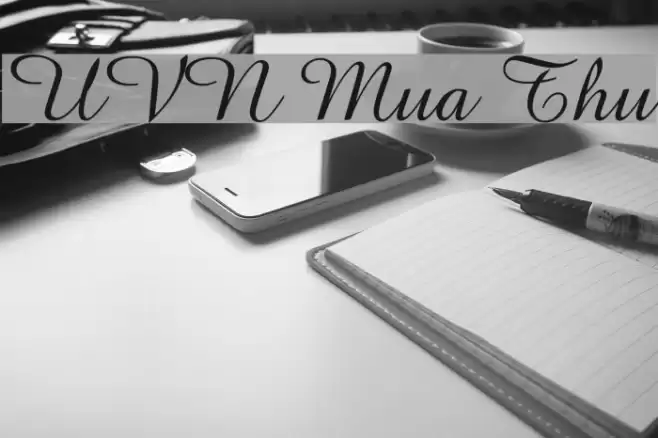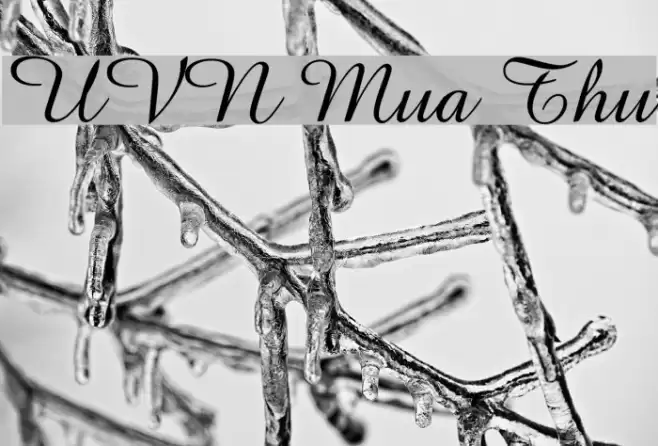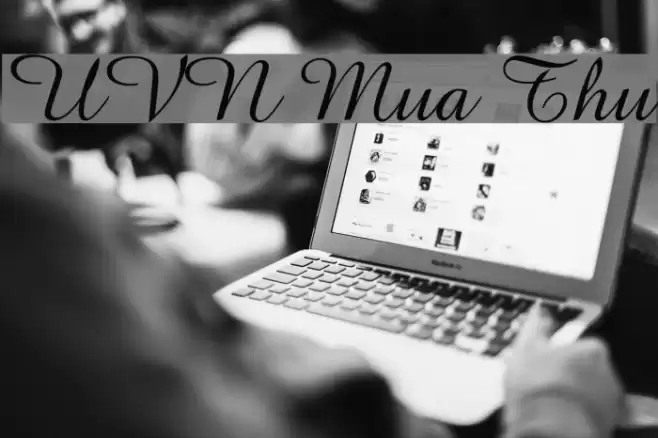
UVN Mua Thu Font
This elegant script font features a flowing, cursive style with smooth, continuous strokes that create a sense of fluidity and grace. The uppercase letters are adorned with intricate loops and flourishes, adding a touch of sophistication and charm. The lowercase letters maintain a consistent slant, enhancing the overall harmony of the design. Numbers and special characters are crafted with the same attention to detail, ensuring a cohesive look across all elements. The font's delicate curves and refined appearance make it ideal for projects that require a touch of elegance and class.
A graceful script font with flowing, cursive strokes and intricate flourishes from Uncategorized fonts.
- Proposed Projects: Wedding invitations, elegant branding, greeting cards, and upscale packaging.
- Overall Style: Elegant
- Use Case: Logos, Invitations, Decorative text